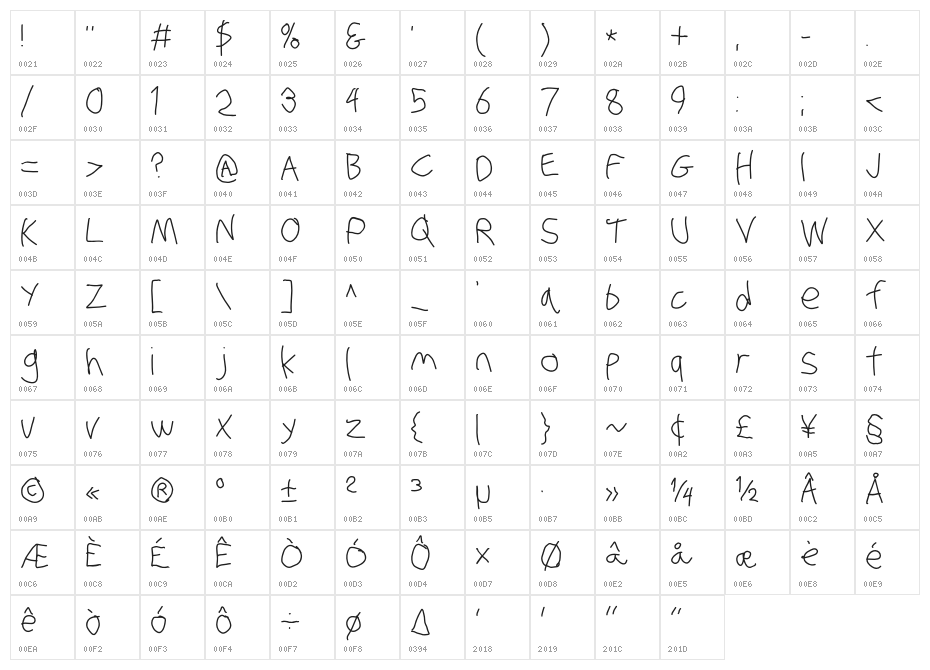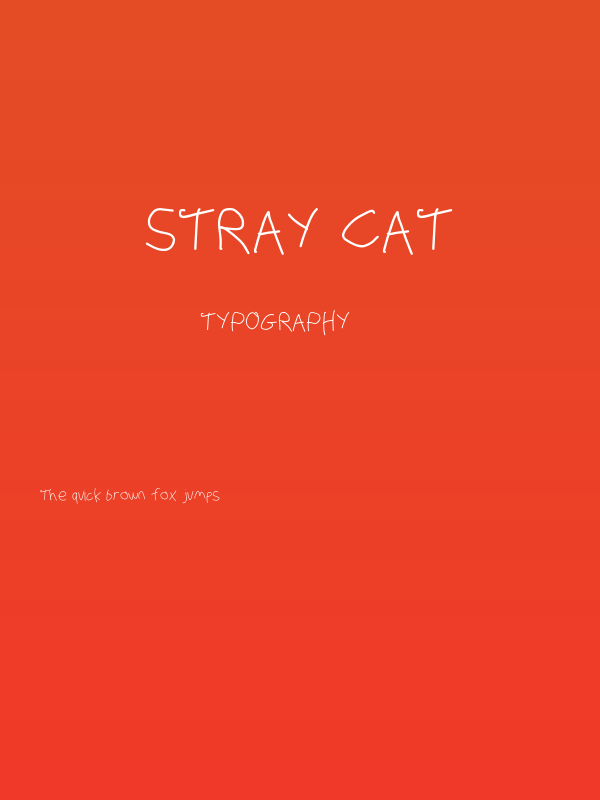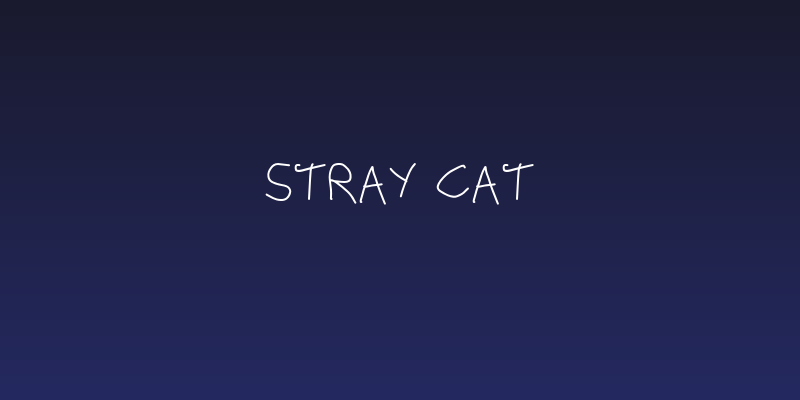
Stray Cat Font
Stray Cat Description
This font exudes a playful and casual handwritten style, characterized by its loose and informal strokes. The letters are slightly irregular, giving it a natural and authentic feel, reminiscent of a quick note or a personal letter. The uppercase and lowercase letters maintain a consistent flow, while the numbers and special characters complement the overall aesthetic. The font's charm lies in its simplicity and the organic movement of each character, making it approachable and friendly. Its legibility is maintained despite the whimsical nature, ensuring it can be used effectively in various contexts.
| Use Case | Headlines, Informal text, Personal projects |
| Proposed Projects | Ideal for personal notes, greeting cards, children's books, casual branding, and social media graphics. |